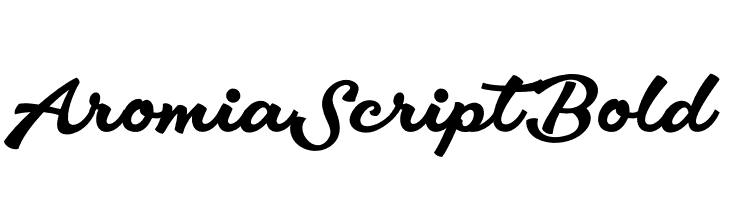
A modern, geometric font with thin lines and generous spacing.
A bold, playful font with decorative serifs and a whimsical style.
A flowing, cursive script font with elegant, interconnected characters.
A bold, cursive script font with flowing, connected letterforms.
A bold, angular serif font with a modern twist.
A playful, quirky handwritten font with an artistic flair.
A modern, geometric stencil font with a futuristic and industrial design.
A stylish and elegant script font with flowing, cursive characters.
A playful, hand-drawn style font with tall, narrow letters and a whimsical feel.
A bold, flowing script font with elegant cursive letterforms and decorative flourishes.